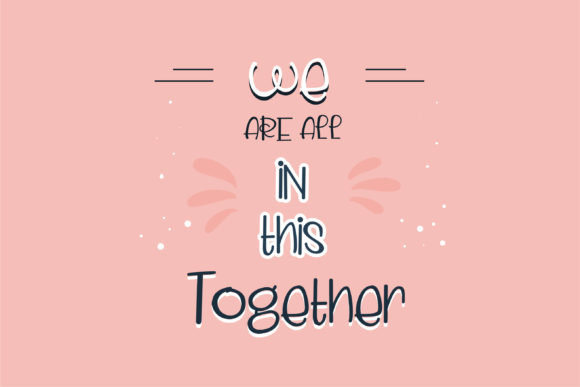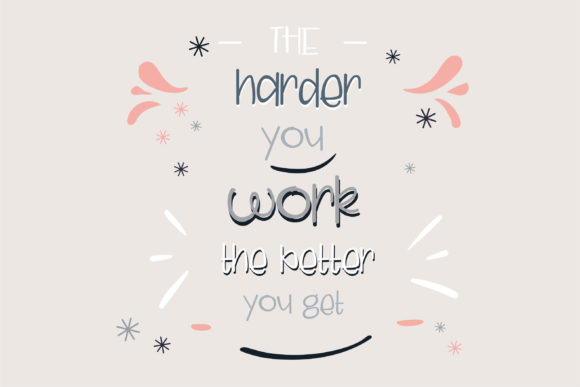
Pollyana and Pollyspinz Font
db-ku.com - Script & Handwritten -- Pollyana and Pollyspinz is a simple, hand-written font that has a whimsical, youthful feel. It has beautiful and well balanced characters and as a result, it matches a wide pool of designs. Add it to your most creative ideas and notice how it makes them come alive!